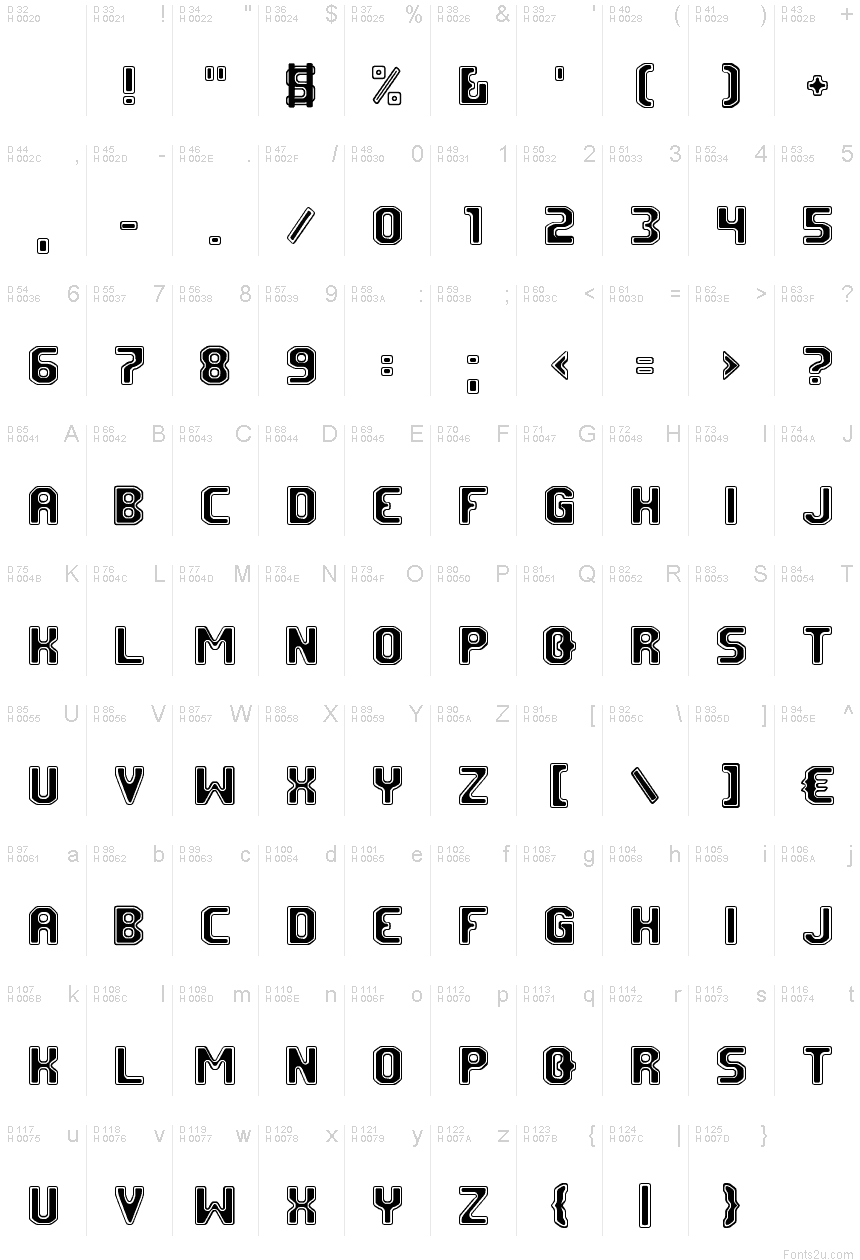
FM University
FM University font by Dieter Schumacher is a free modern outline sans serif typeface with a bold, varsity-inspired spirit. Each letter feels like a block of solid ink carved out from the inside, with crisp double-lines and slightly softened corners that echo classic college jackets and stadium signage. The result is chunky, confident lettering that reads loud and clear even from a distance.
Using FM University gives posters, sports merch, banners, and event flyers an instant campus or team vibe. This free font also works beautifully for logos, gaming titles, and youth-focused branding where you want energy without looking messy. Try pairing FM University with a clean geometric sans in smaller text, and keep it large so those punchy outlines have room to breathe.